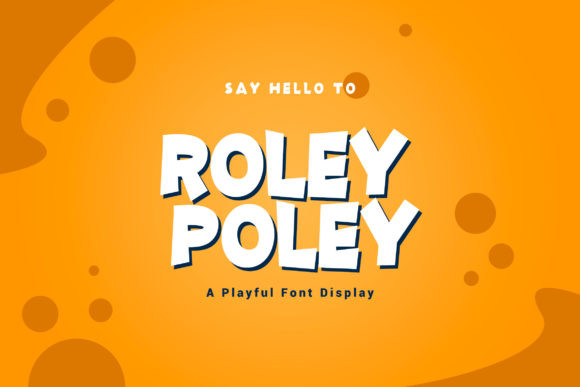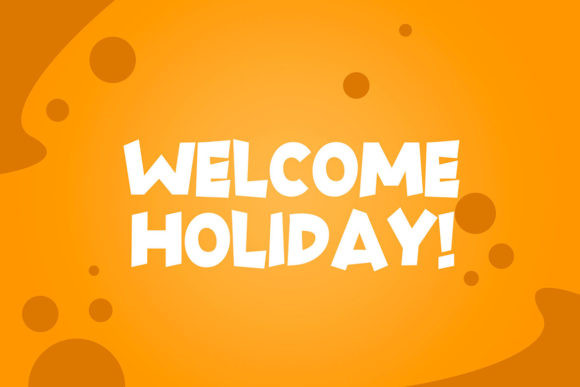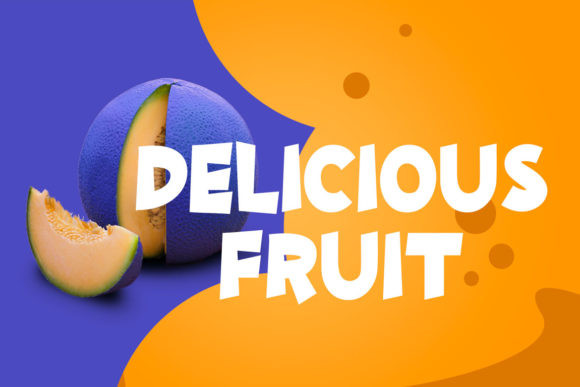
Roley Poley Font
Roley Poley embodies fun, quirkiness and authenticity. This enchanting display font will turn any creative idea into a true standout.